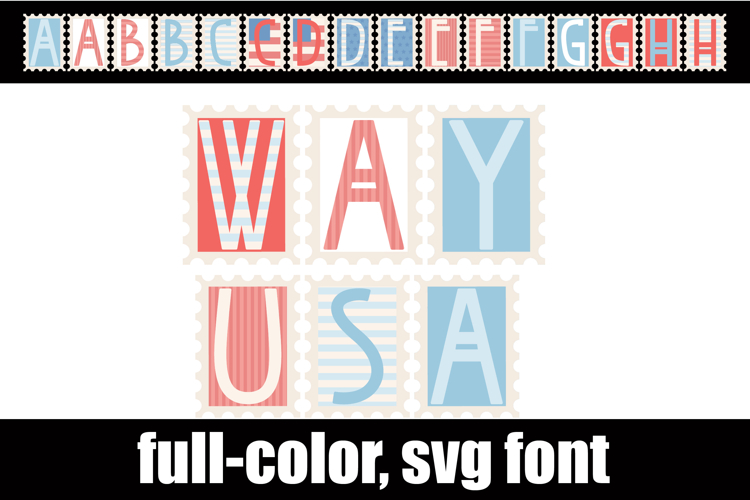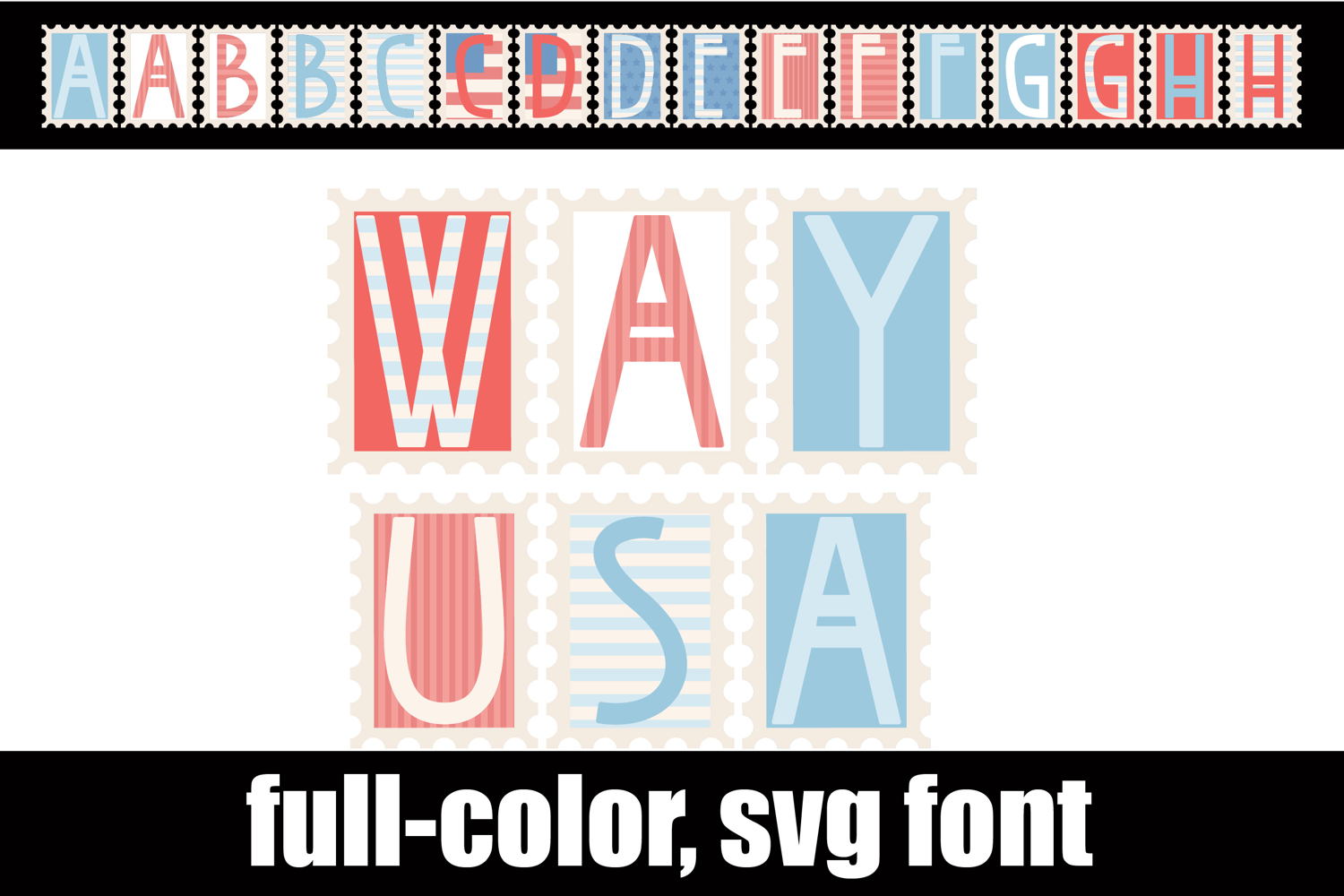
Way USA Too Color Font
This full-color, postage-style font is in a pastel patriotic color palette. There is an alt case of additional colors of each letter that you can access through your system's character map. T